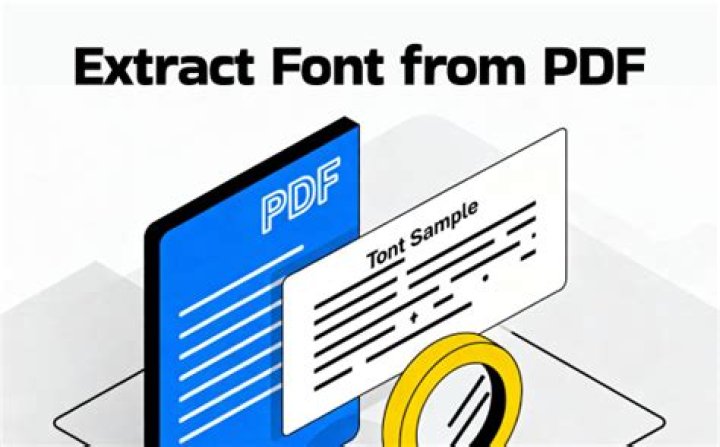
How can I extract embedded fonts from a PDF?
Use the “Open Font” dialogbox used when opening files. Then select “Extract from PDF” in the filter section of dialog. Select the PDF file with the font to be extracted. A “Pick a font” dialogbox opens — select here which font to open.
How do I find out what font is used in a PDF?
Using a PDF Reader, inspect the document properties to see what fonts are used. If you’re using Adobe Acrobat to read PDF files, choose File > Properties and click on the Fonts tab to see a list of the fonts used in the document.
How do I change the embedded font in a PDF?
- Open your PDF document.
- Switch to Edit Mode.
- Wait for the Edit toolbar to appear.
- Select the text editor icon.
- Click on the document where you want to insert or delete existing text and wait for cursor appear.
- Type desired text, or delete existing text by pressing the backspace button on your keyboard.
How do you check if fonts are embedded in a PDF?
Confirm Fonts are Embedded are in your PDF: Go to File > Properties. Select Fonts and verify that all fonts show (Embedded Subset)
How do I find a certain font?
How to identify fonts in pictures
- Step 1: Find a picture with the font you want identified.
- Step 2: Open your favorite Web browser and navigate to
- Step 3: Click on the Browse button on the Web page and navigate to the picture you saved in Step 1.
How do I fix font not embedded?
In Acrobat Pro, Tools > Print Production > Preflight > expand “PDF Fixups” > select “Embed Fonts” > click “Analyze and fix”. This suggestion will not work if the font is licensed such that embedding is forbidden. In that case hopefully you have access to the source document and can use a different font.
How do I fix font problems in PDF?
How to solve common font issues in editable PDFs
- STEP 1: CHECK THAT THE FONTS HAVE BEEN EMBEDDED.
- STEP 2: PUT SOME DEFAULT TEXT INTO ALL FORM FIELDS.
- STEP 3: ENSURE THE FORM FIELD IS NOT SET TO RICH TEXT FIELD.
- STEP 4: OPEN PDF IN LATEST VERSION OF ADOBE READER.
What font is good for making text stand out?
Serif or Sans-Serif Sans-serif fonts are easier to read when there just a few words, so are great for making statements.
Are fonts automatically embedded in PDF?
Some applications such as Adobe InDesing automatically embed all fonts when pages are exported to PDF. Acrobat Distiller offers an option to automatically add missing fonts to PostScript files it has to process. Distiller only needs the printer fonts, it does not need the screen fonts.
How do you check if a font can be embedded?
Navigate to File > Properties. Click the Fonts tab. If a font has the phrase ‘(Embedded Subset)’ after the font name, then embedding is allowed. If there is nothing after the name, then font embedding is most likely not allowed.